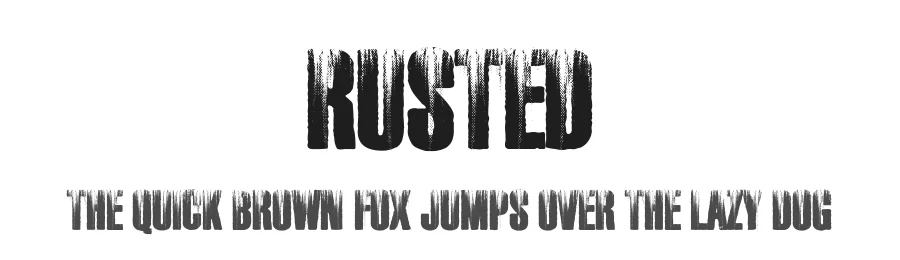
About Rapture Font
Rapture is a decorative font designed by Illegal Industriez Design. It includes 110 glyphs, TTF (TrueType) format, and 104 languages. Rapture is free to download; check the license details on this page before commercial use. Decorative fonts like Rapture work best for logos, posters, packaging, and standout headlines.
Rapture Font is a decorative font that shines as a display or heading face. Pair it with a clean sans-serif or serif font for body text β the contrast creates a clear hierarchy while the two styles stay balanced and easy to read.
Rapture Font
Rapture Font is a decorative typeface by Illegal Industriez Design, ideal for logos, invitations, branding, and creative projects.